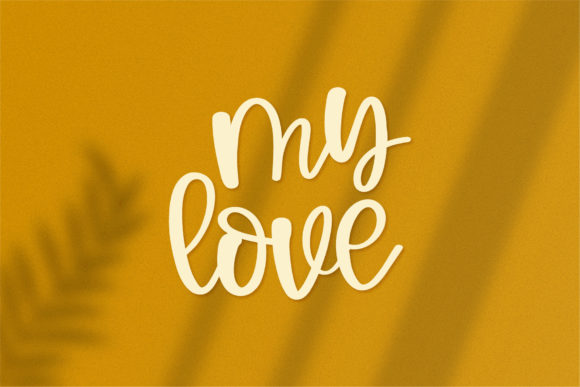
Introducing My Love Font - A Symphony of Elegance for Your Modern Website
Immerse yourself in the captivating world of My Love Font, a script font family that exudes warmth, charm, and a touch of nostalgia. Designed by the talented BitongType, this font is an ode to timeless beauty, meticulously crafted to bring a personal and realistic feel to your digital creations.
With its round, lettered design, My Love Font evokes a sense of playfulness and informality, making it the perfect choice for chalkboard quotes, teaching materials, and any project that calls for a genuine, handwritten touch. Whether you're a seasoned designer or just starting your creative journey, My Love Font is your gateway to captivating designs that speak to the heart.
Its authentic look and feel will transform your designs into masterpieces, adding a layer of depth and character that captivates audiences. My Love Font is not just a font; it's an expression of your individuality, a reflection of your unique style. Embrace the charm of My Love Font and let your creativity soar.